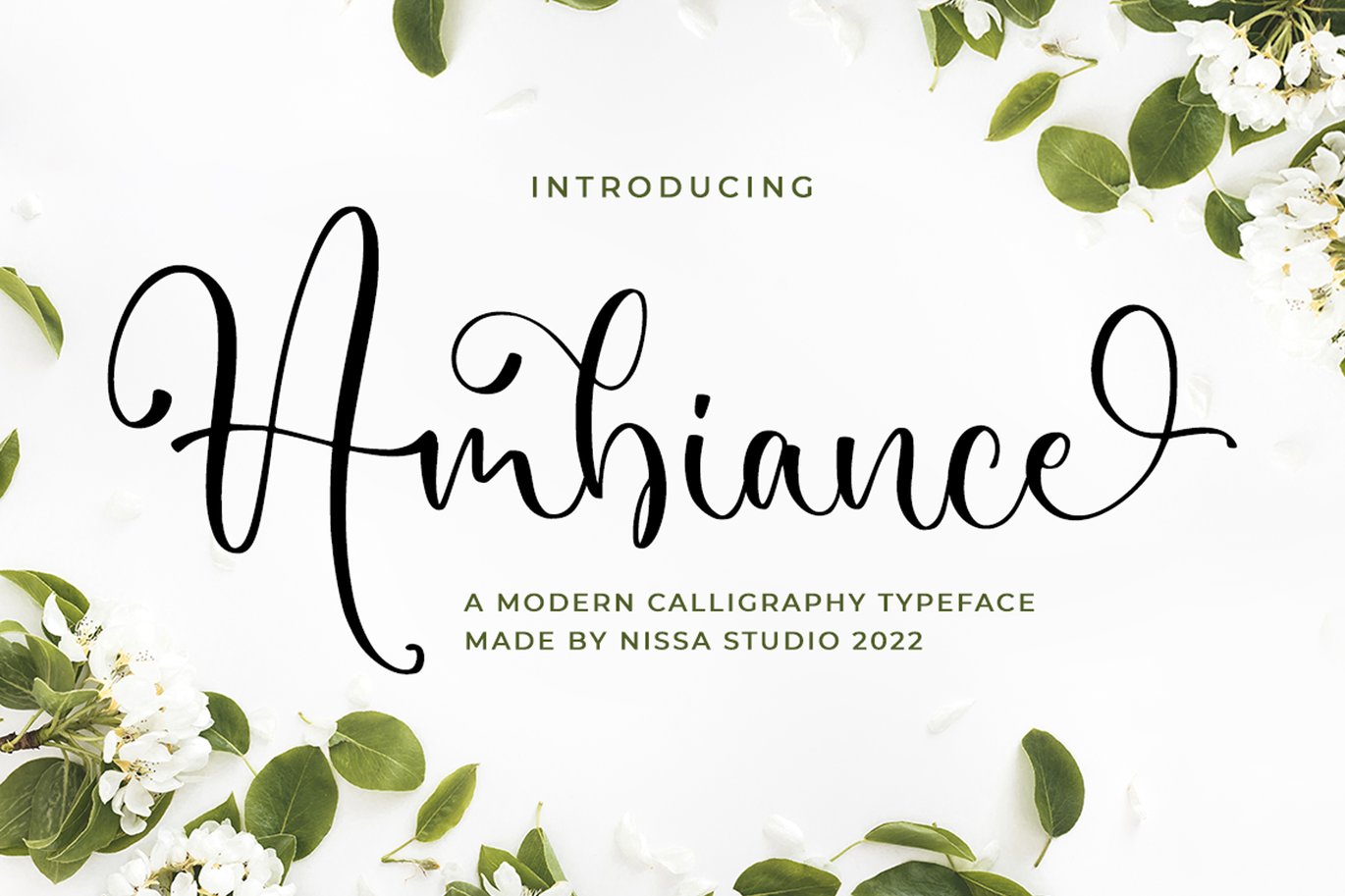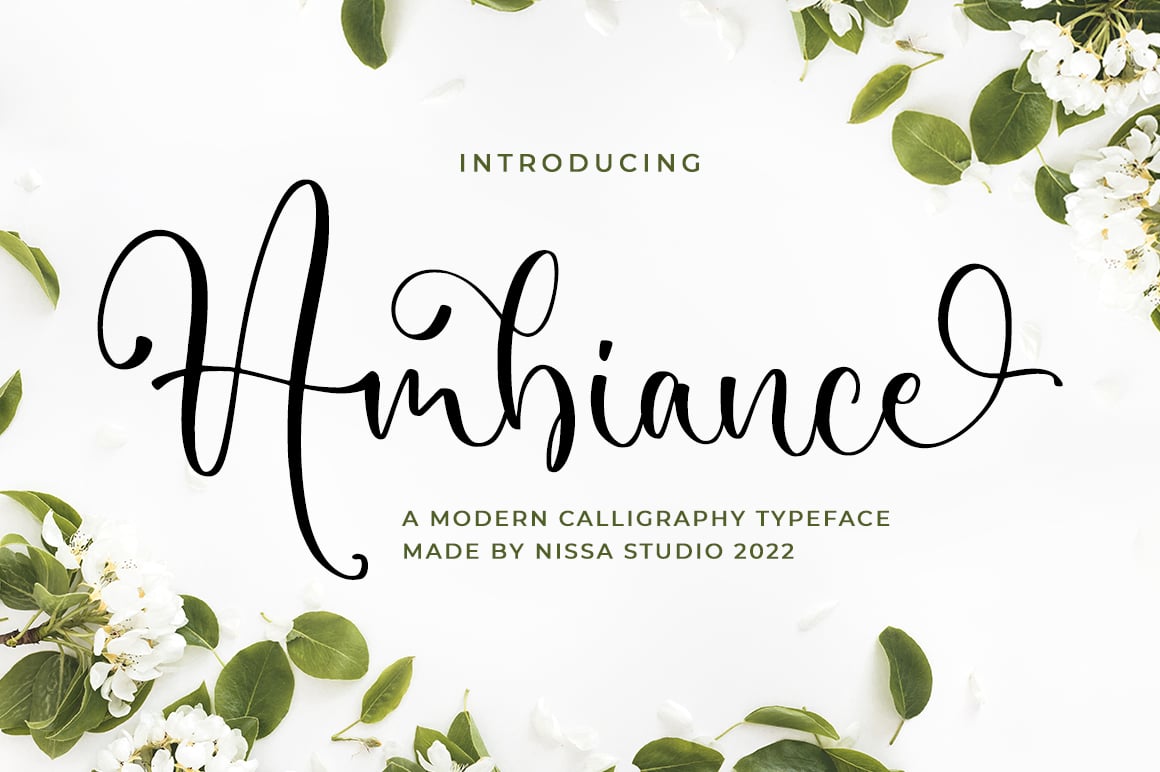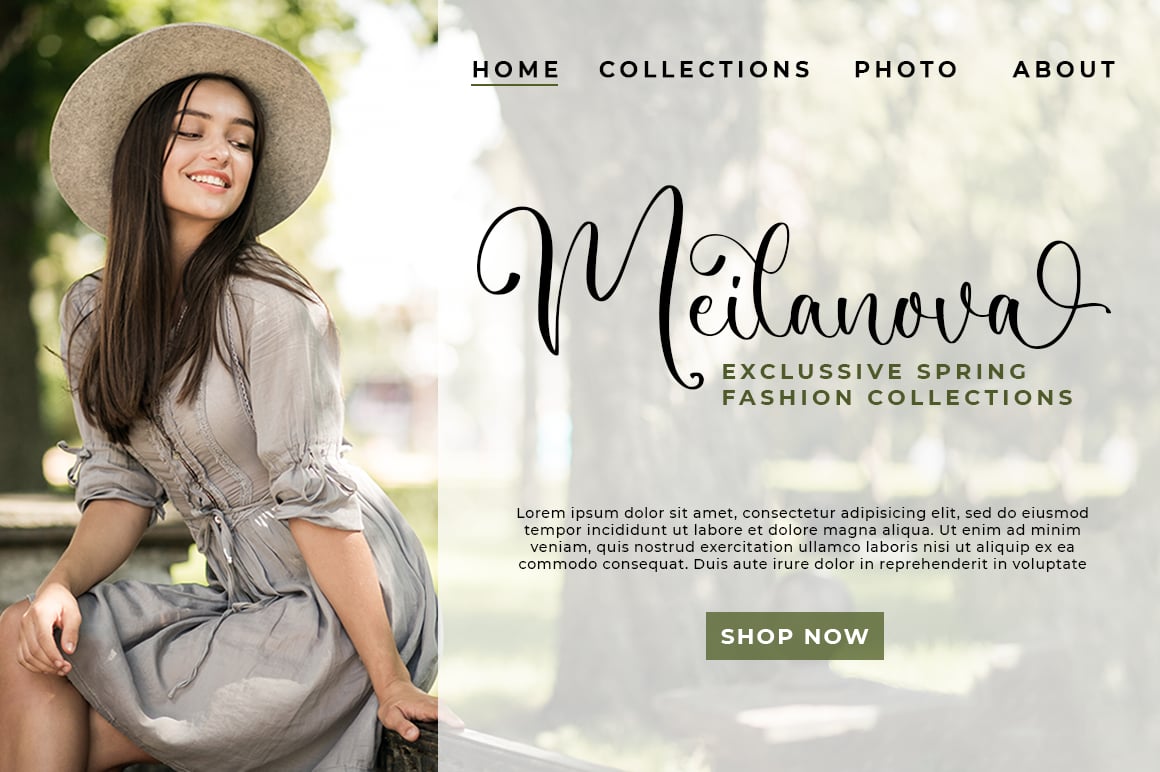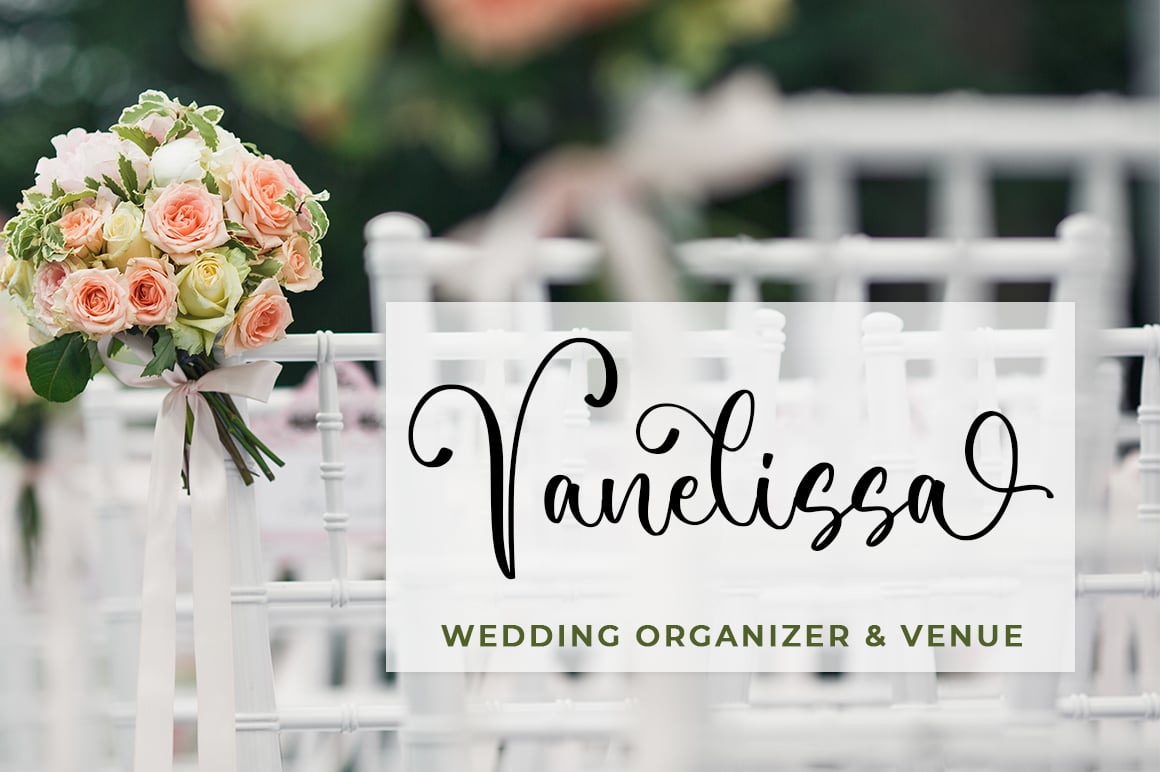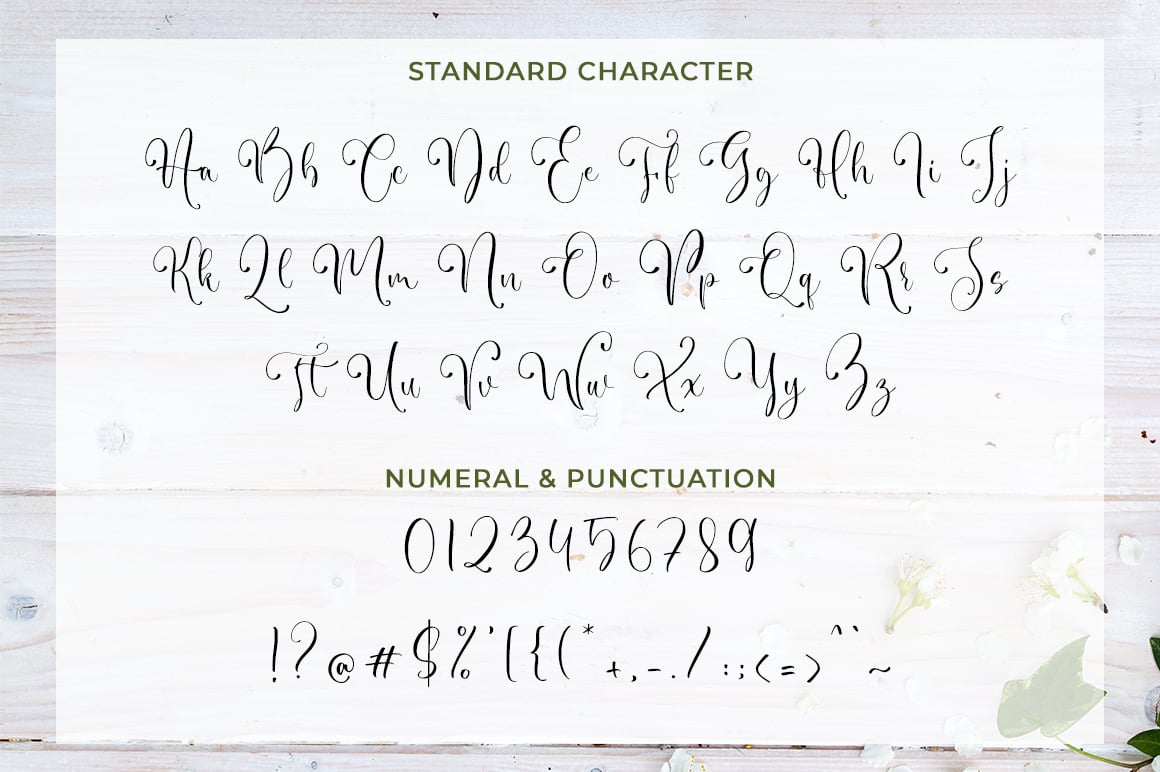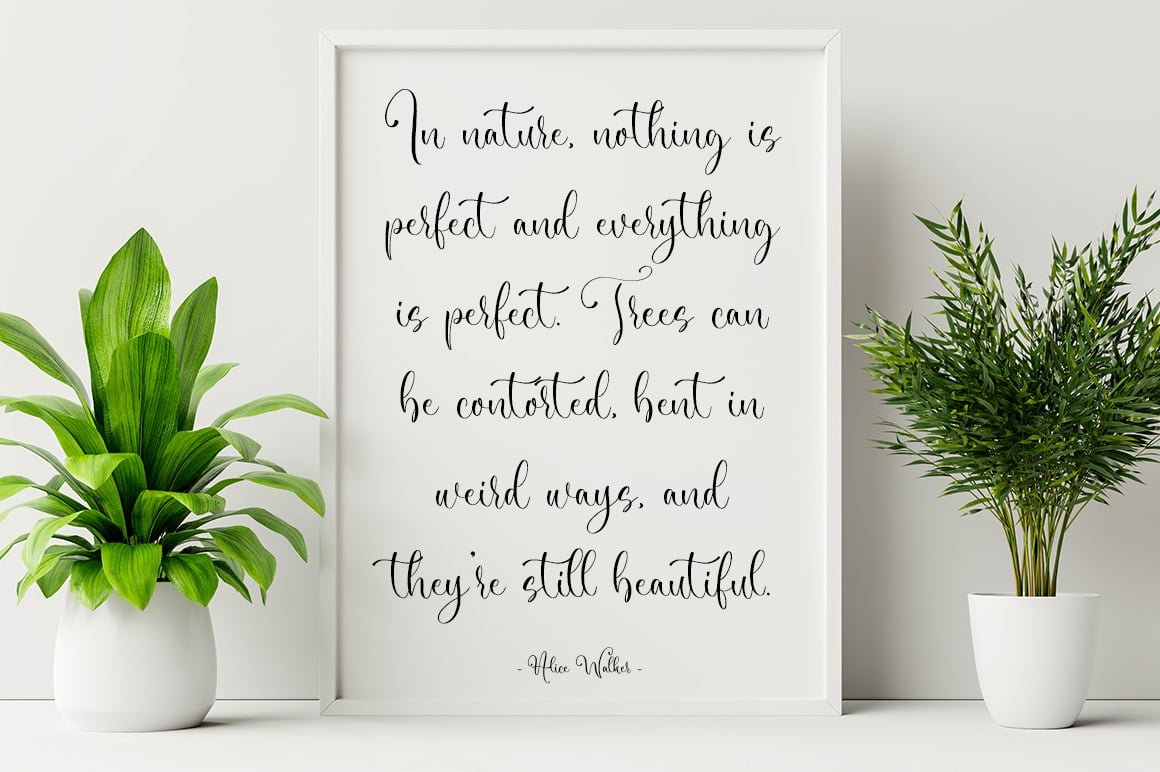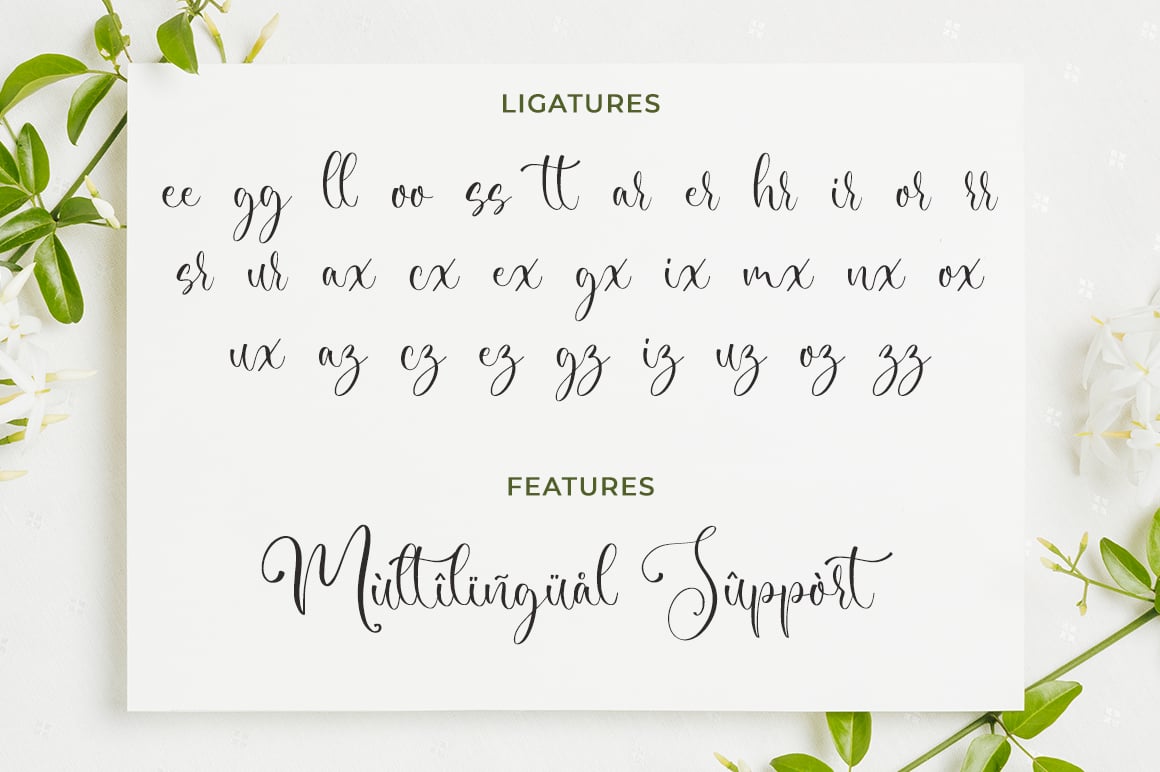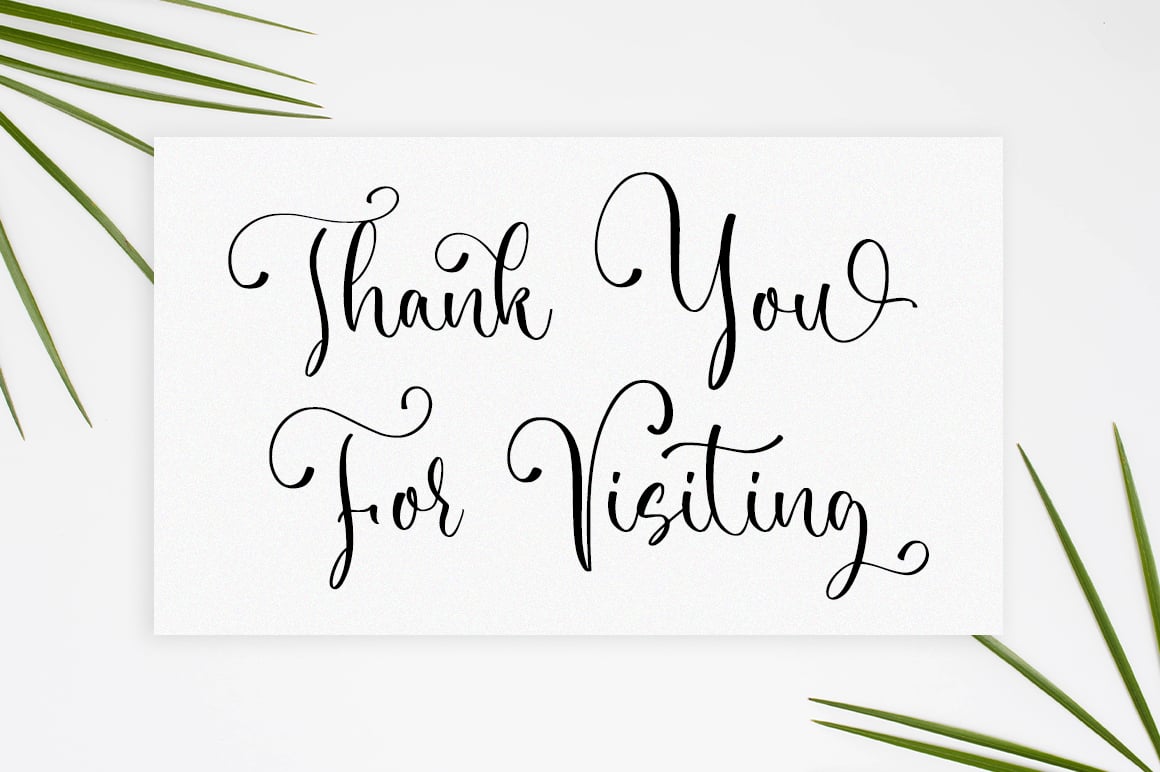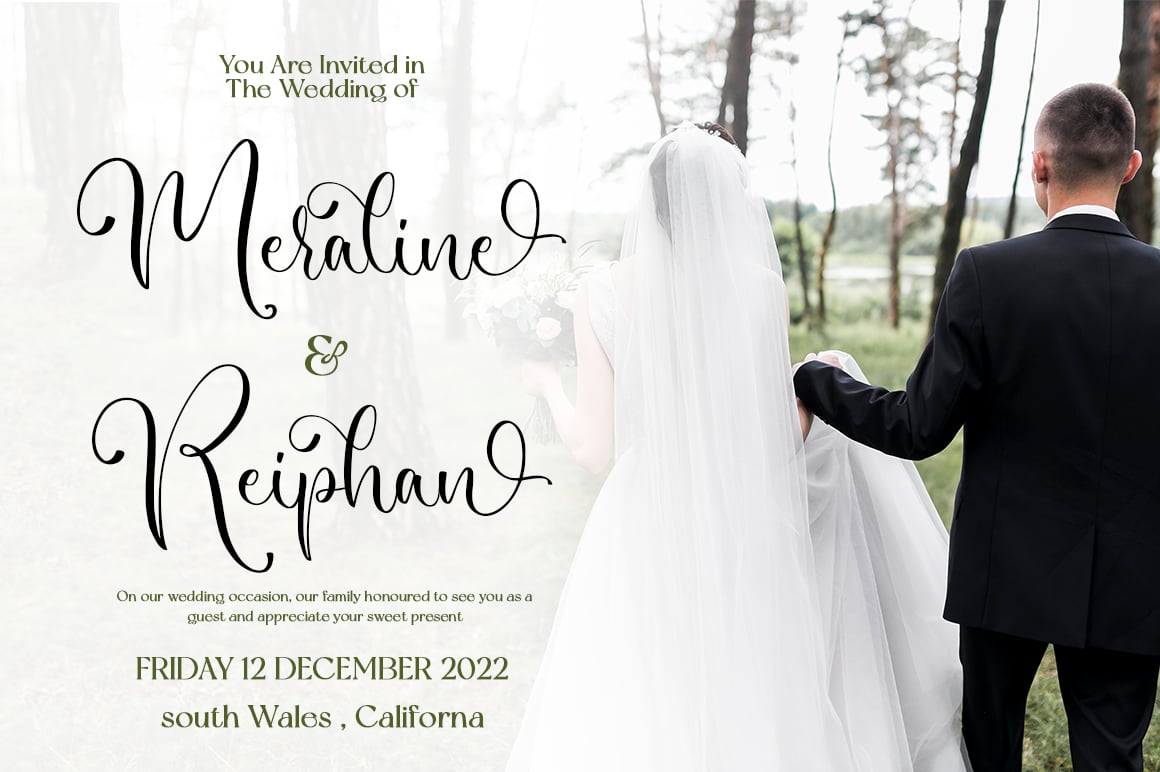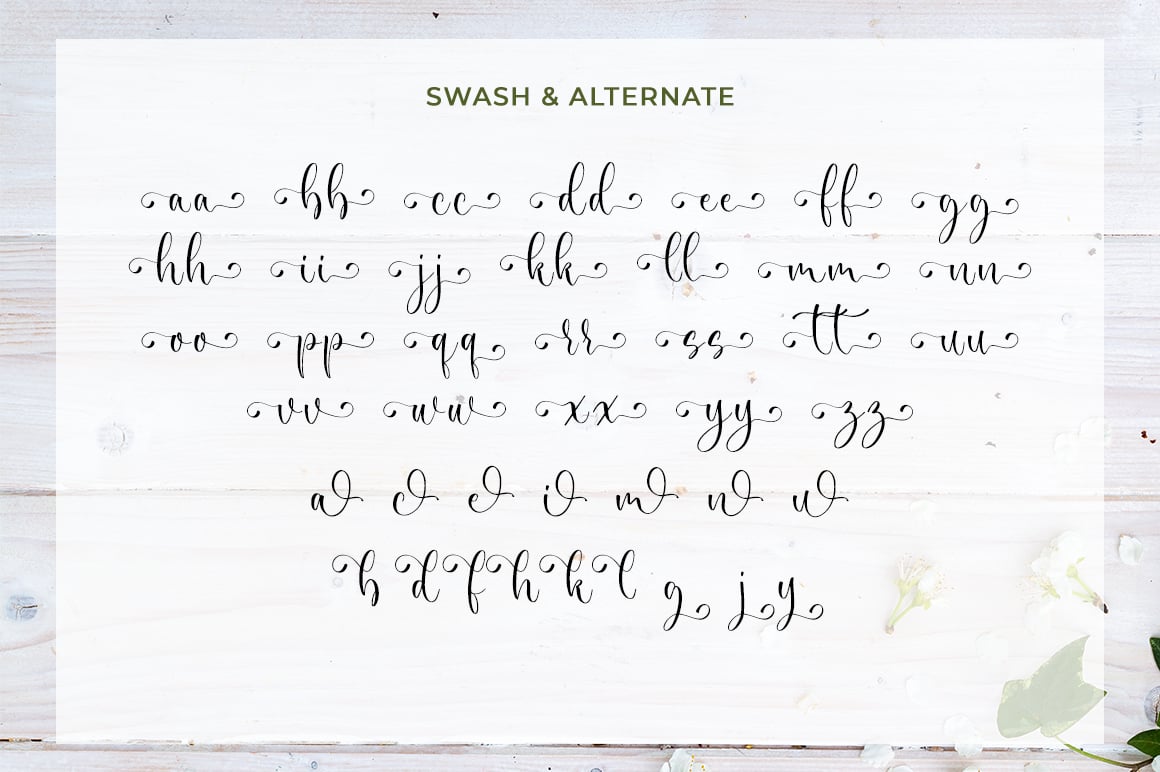
Ambiance – Wedding Font
Ambiance is a beautiful script font. Its refined style will give an elegant and modern look to any of your creative projects such as logos, branding, invitations, stationery, wedding designs, social media posts, and many more!
- Modern Handwritten Font
- Beautiful Swash (Ending tail)
- Beautiful Titling (Beginning tail)
- Special Ligatures